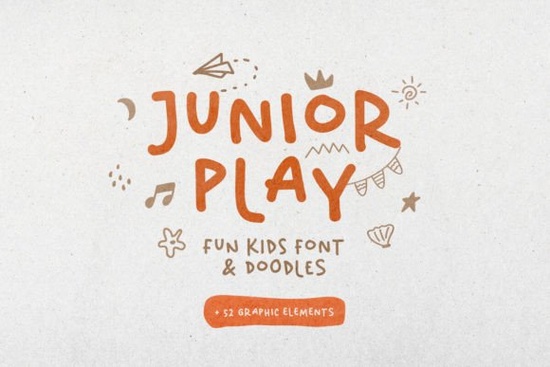
If you’re designing for kids whether it’s storybooks, classroom posters, birthday invites, or playful packaging you’ll want a font that feels like it was drawn with crayons in hand. That’s where Junior Play Font comes in. It’s got that charming, slightly uneven, hand-doodled look that makes every letter feel alive and friendly. Rounded edges, wobbly lines, and a carefree spirit give this font personality without trying too hard exactly what you need when your audience is under 10 (or young at heart).
What sets Junior Play apart isn’t just the main alphabet it also includes a bonus doodle font. Think stars, clouds, hearts, and squiggles that pair perfectly with the letters. You can sprinkle them around headlines, use them as bullet points, or let them frame your text like little bursts of joy. And yes, it supports multiple languages, so if you’re creating bilingual flashcards or global-themed party decor, you’re covered.
What kinds of projects work best with Junior Play?
This font thrives in environments where fun matters more than formality. Here are a few places it really shines:
- Children’s books chapter titles, speech bubbles, or cover art that needs to pop off the shelf.
- Educational printables worksheets, flashcards, or classroom labels that feel inviting, not intimidating.
- Birthday invitations & greeting cards especially for themes like jungle parties, space adventures, or backyard carnivals.
- Toys & games board game instructions, packaging, or DIY craft kits aimed at younger kids.
- Wall art & posters motivational quotes for nurseries, chore charts, or growth trackers with personality.
If you’ve ever used something like Space Invasion for sci-fi kid stuff or Thick Jungle for wild animal themes, Junior Play slots right in as your go-to for everyday whimsy. It doesn’t scream “theme” it just feels happy, which makes it incredibly versatile.
How does it pair with other fonts?
Because Junior Play has such a distinct hand-drawn texture, pairing it with clean, simple sans-serifs works best. Think fonts like Helvetica, Arial, or even Vintage Monograms Pack if you’re going for a retro-crafty vibe. Avoid pairing it with other overly decorative fonts you don’t want visual noise overwhelming your message.
Pro tip: Use Junior Play for headlines or short phrases, and switch to a plain font for body text. Kids (and parents) still need to read clearly charm shouldn’t come at the cost of legibility.
What if I need something bolder or more stylized?
Junior Play is sweet and approachable, but not meant to dominate a poster or scream from a billboard. If you’re looking for something with more edge say, for teen apparel or sports teams check out Greek Varsity. It’s got that athletic, bold-letter energy perfect for older audiences.
Still, for anything aimed at preschoolers, early readers, or family-focused events, Junior Play hits the right note. It doesn’t try to be cool it just is.
Quick checklist before you start designing
- Use sparingly great for titles, labels, and accents, not paragraphs.
- Pair with simplicity let the doodles shine by keeping backgrounds and supporting text clean.
- Test readability especially at small sizes or on dark backgrounds.
- Play with the doodle set don’t ignore the bonus glyphs; they add magic.
- Scale thoughtfully the uneven lines look best when not stretched too thin or squashed.
Whether you’re a teacher making classroom materials, a crafter selling handmade goodies, or a parent throwing a themed birthday bash, this font brings warmth and playfulness without needing extra effort. Sometimes, the best designs aren’t the fanciest they’re the ones that make someone smile without thinking why.